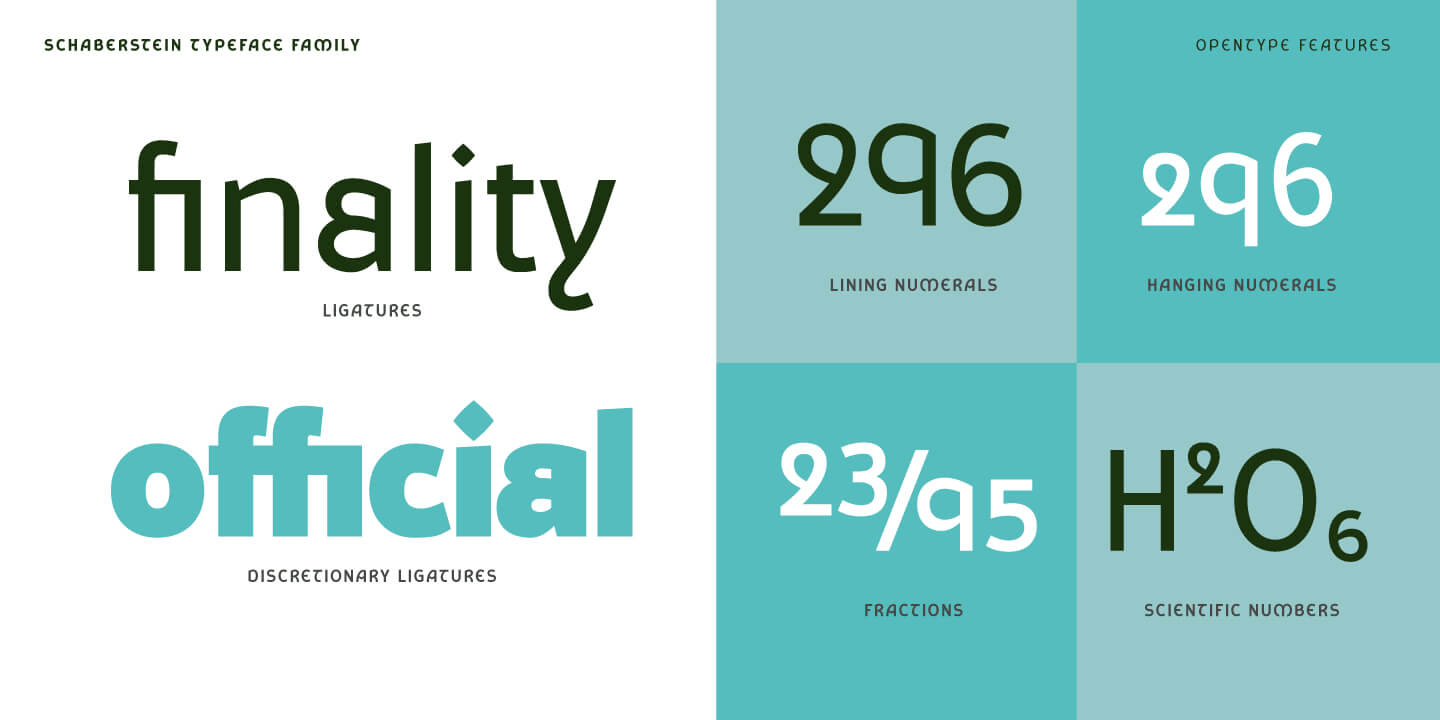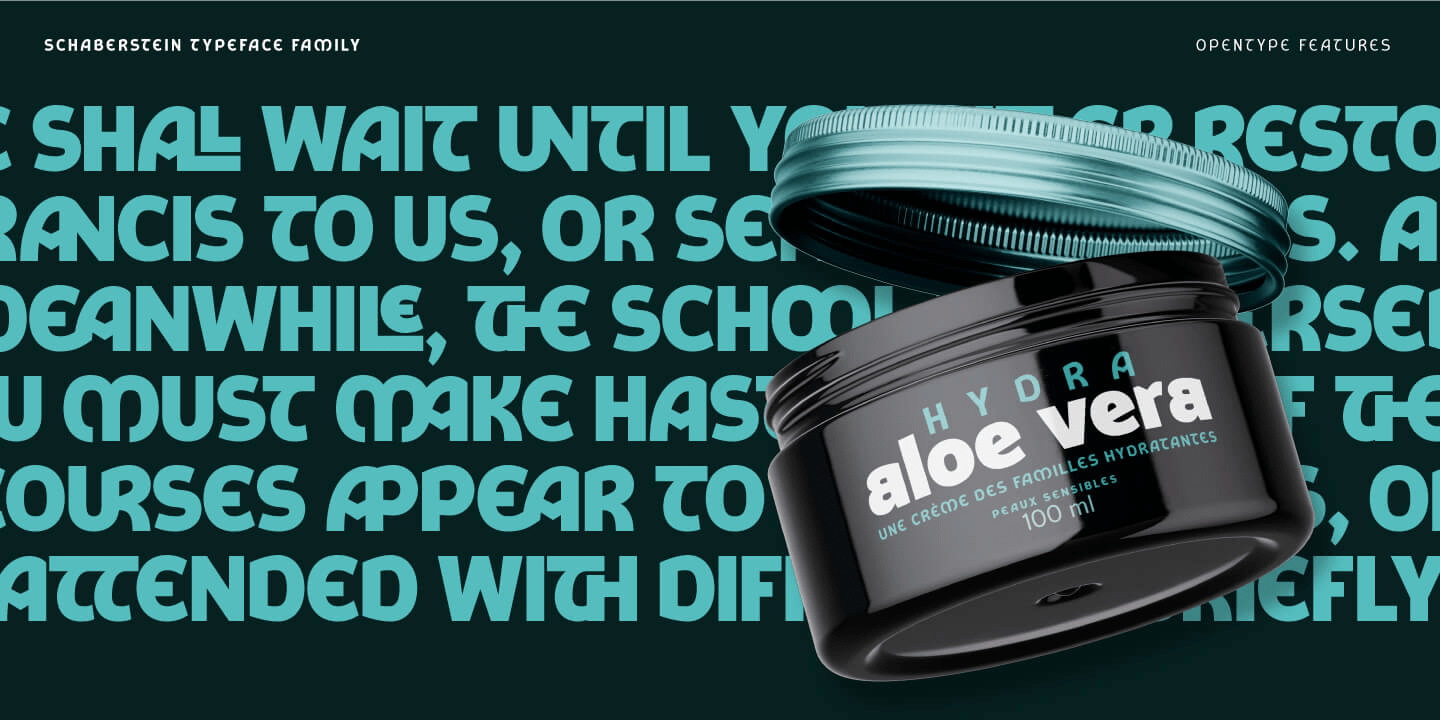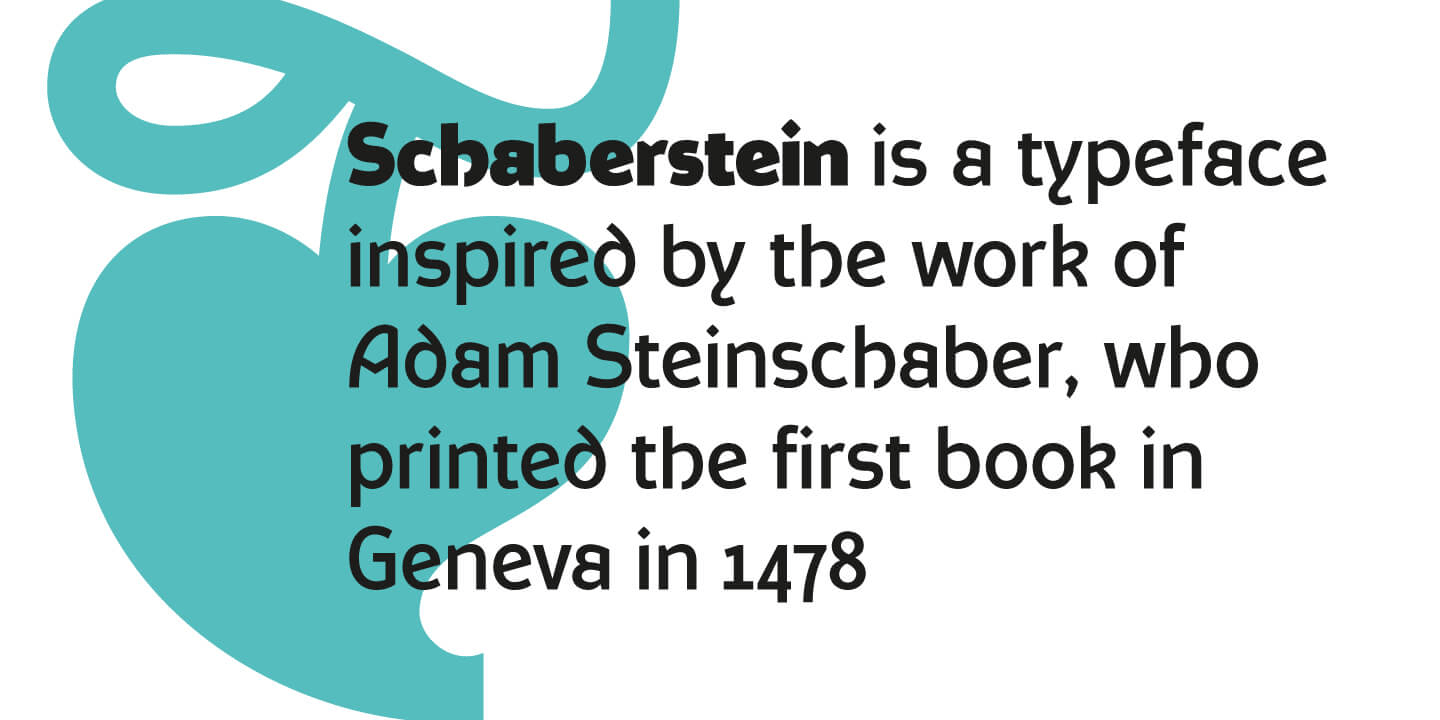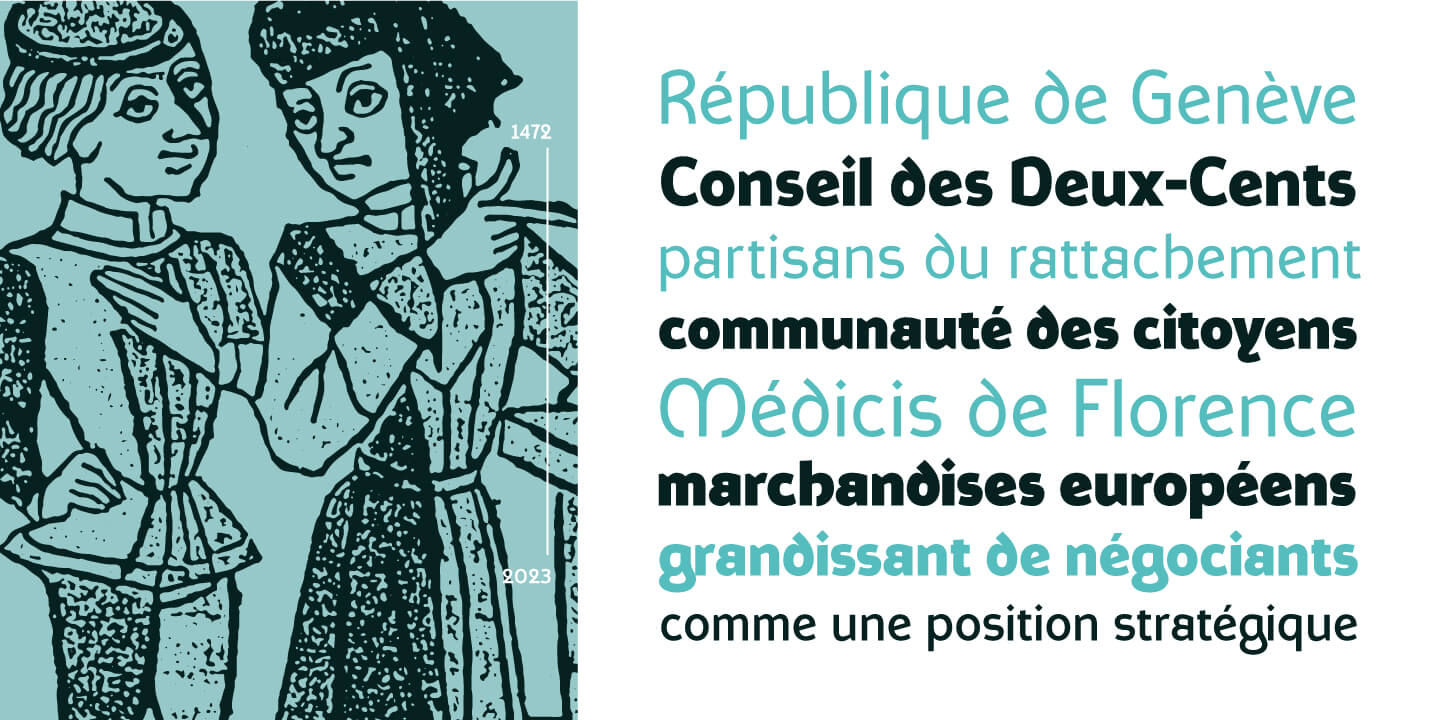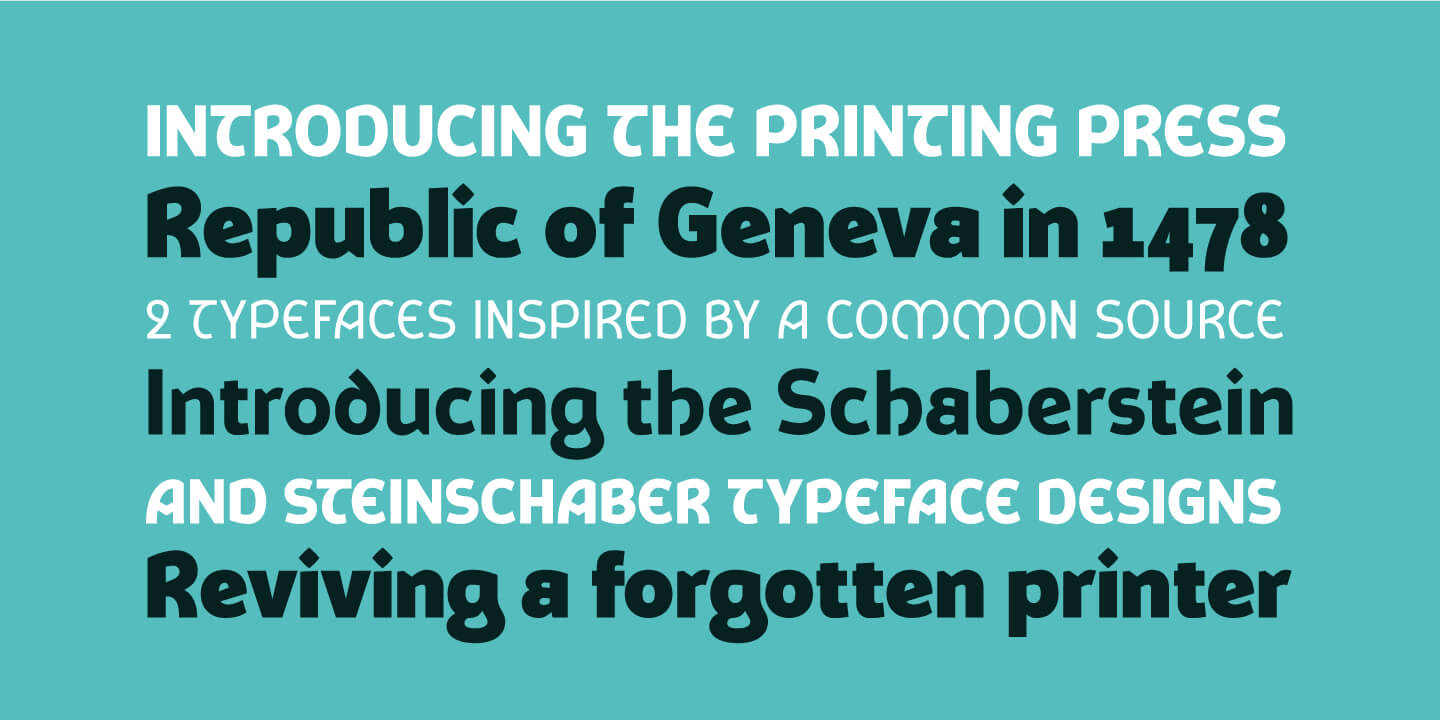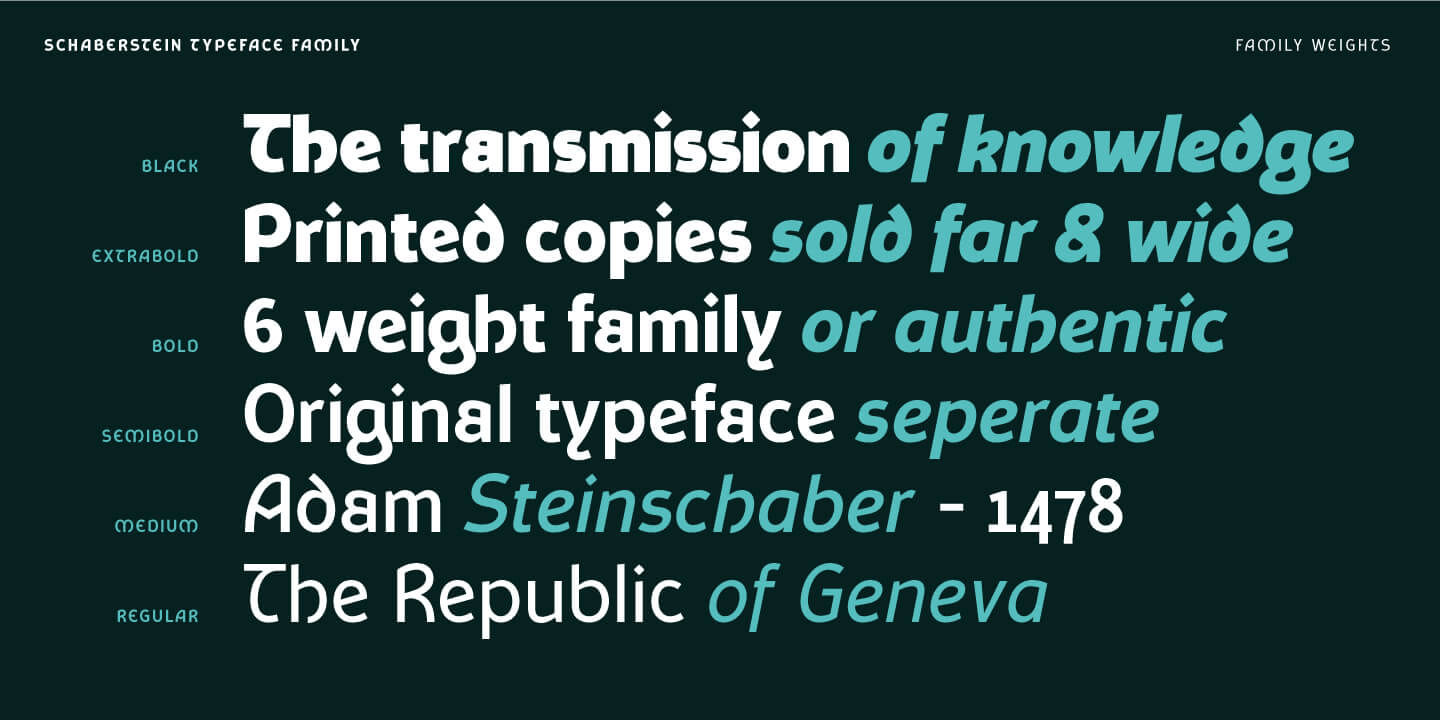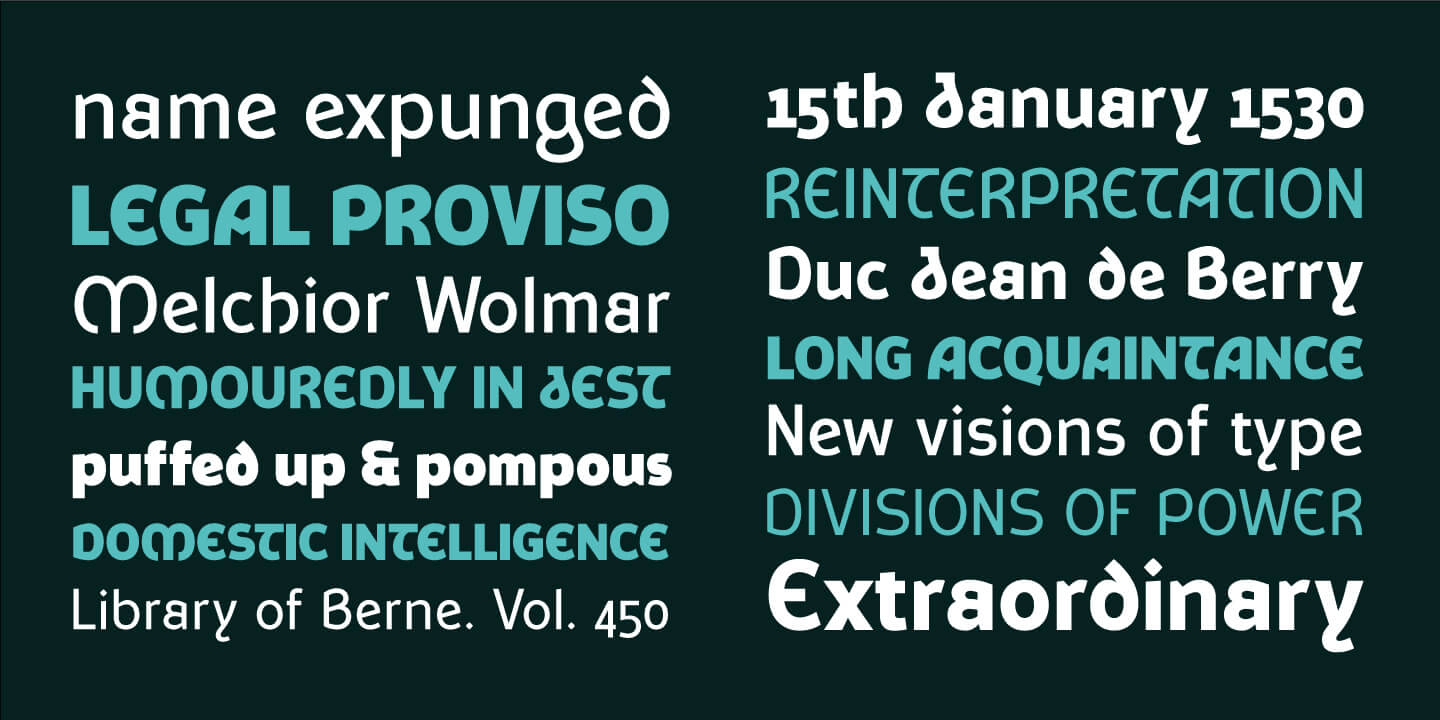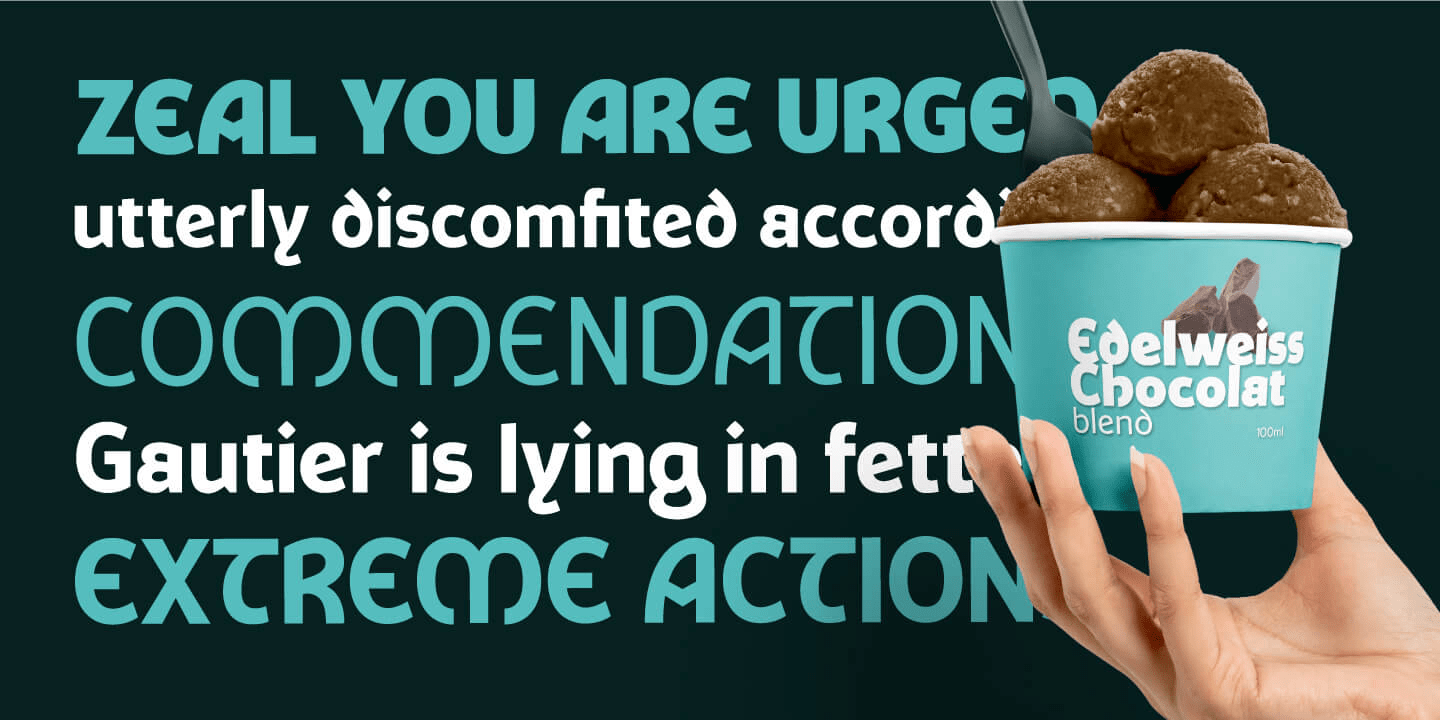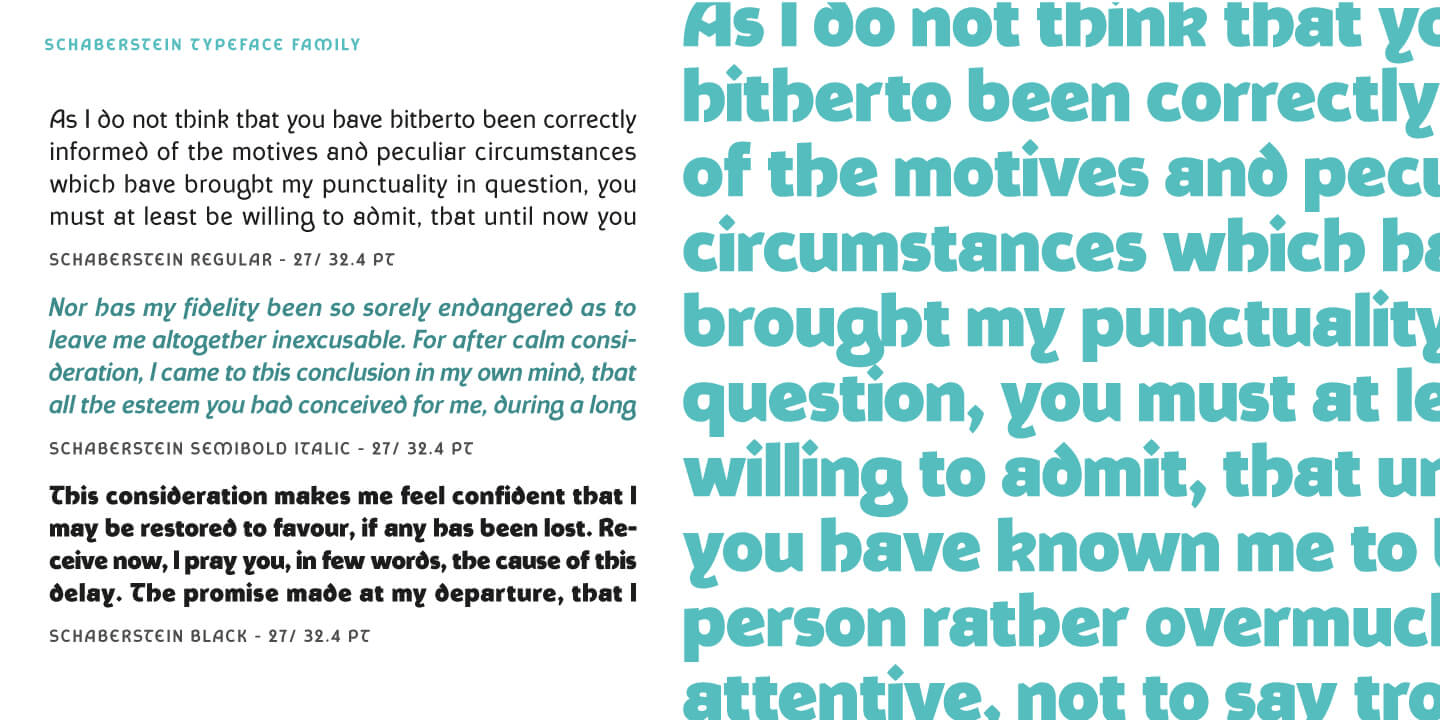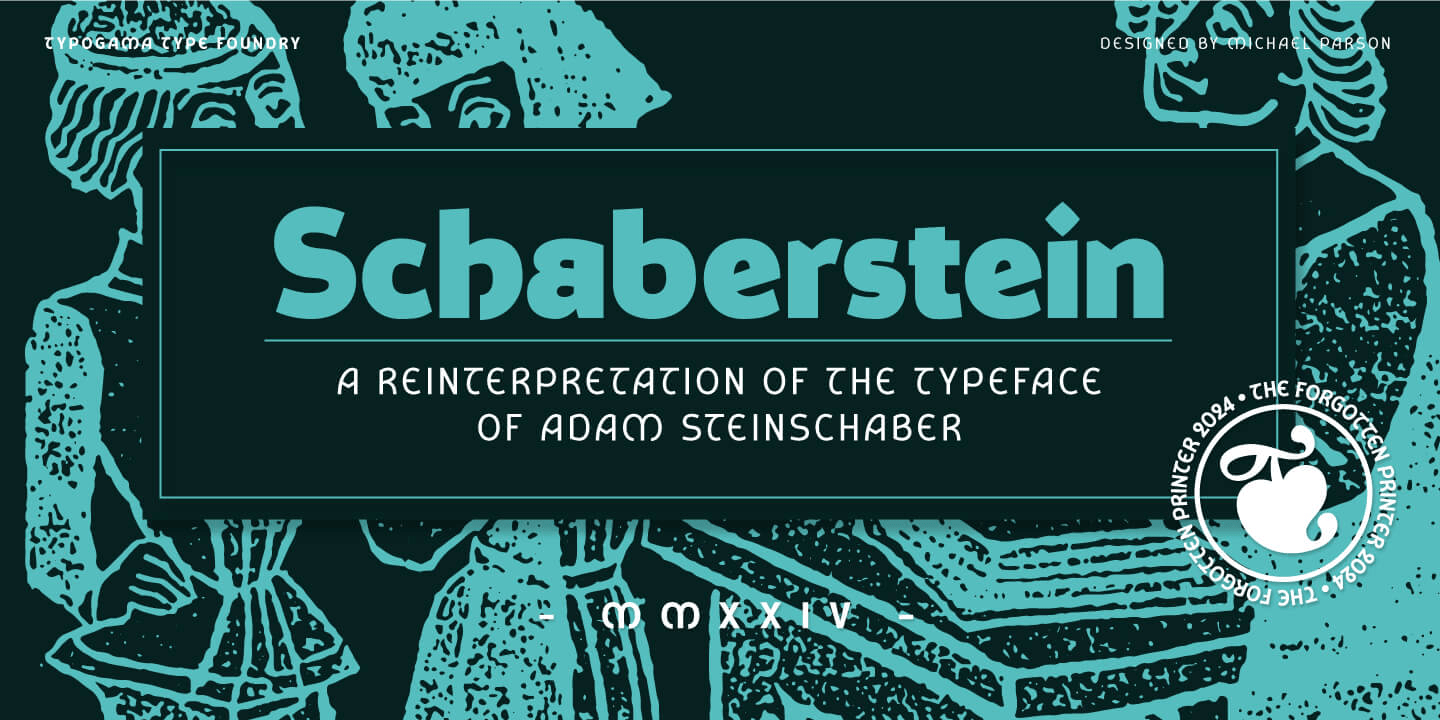
Schaberstein
About Schaberstein
Schaberstein is a sans serif family that reinterprets the typeface, Steinschaber, used by the first printer in Geneva. With six weights, ranging from regular to black, this family offers a unique voice with its distinctive letter forms. Whether in headlines…